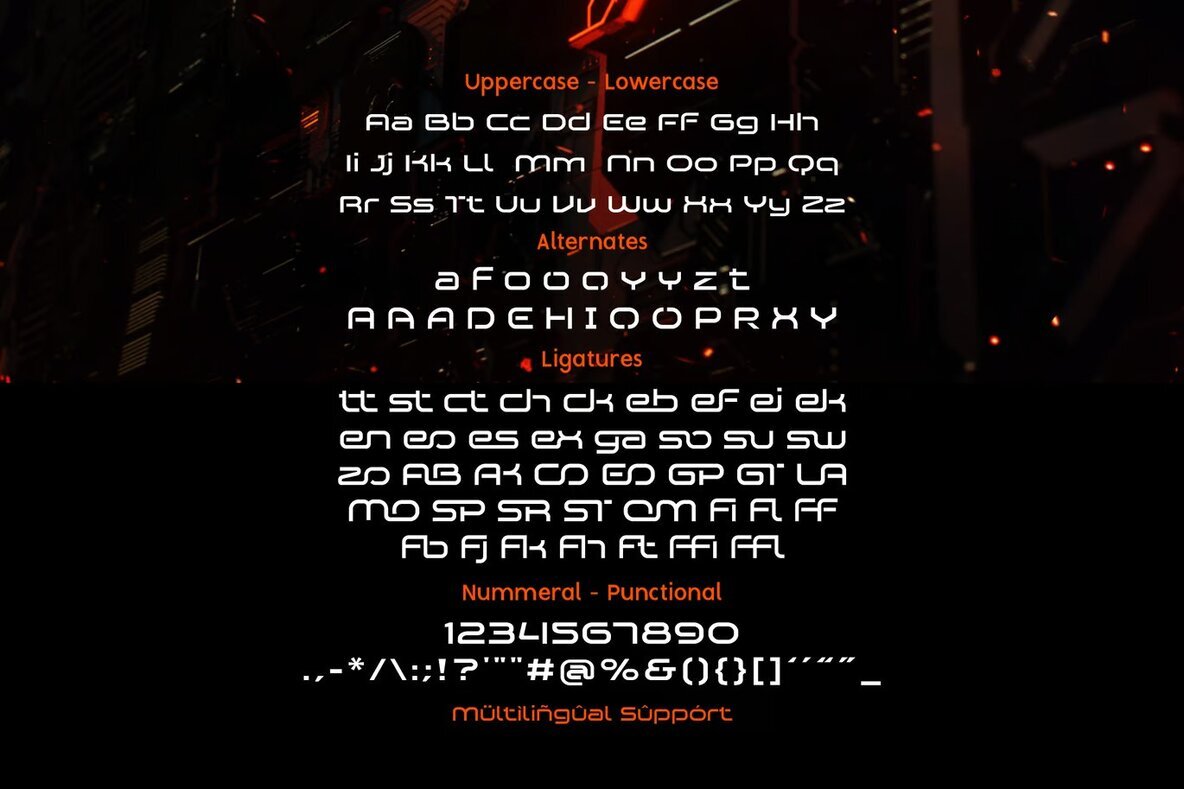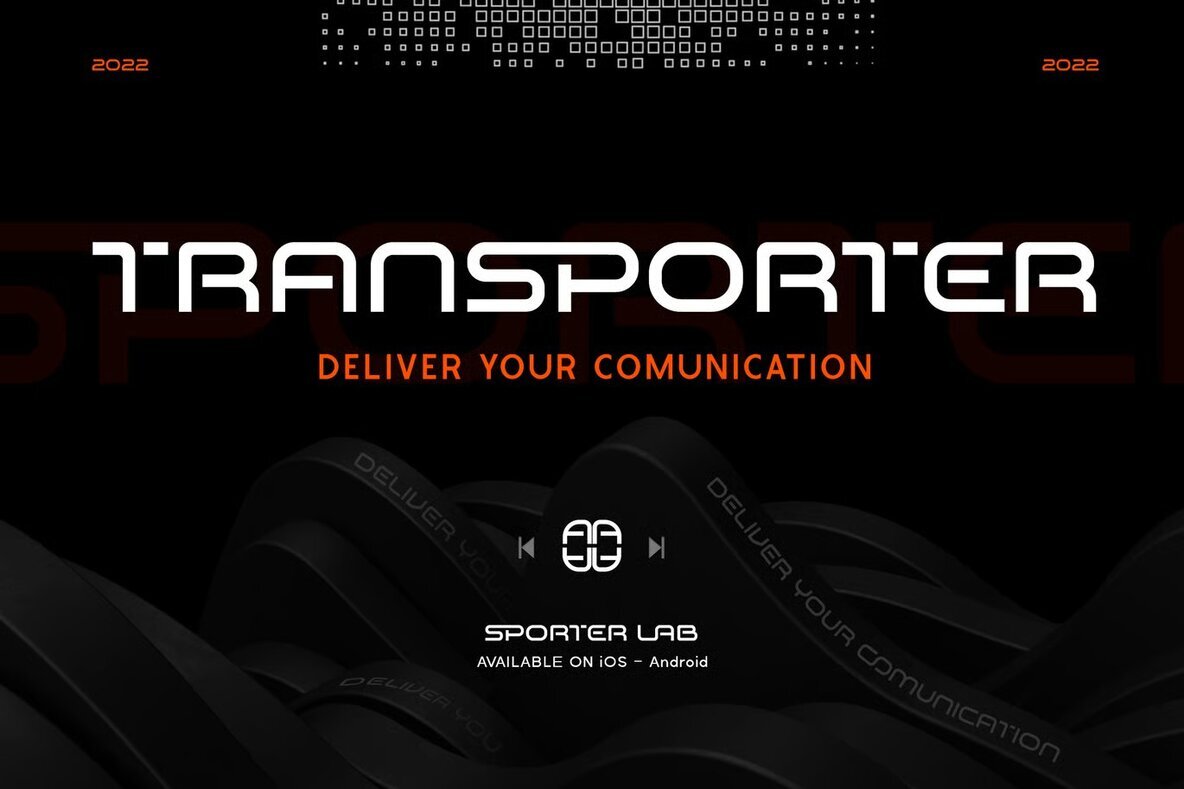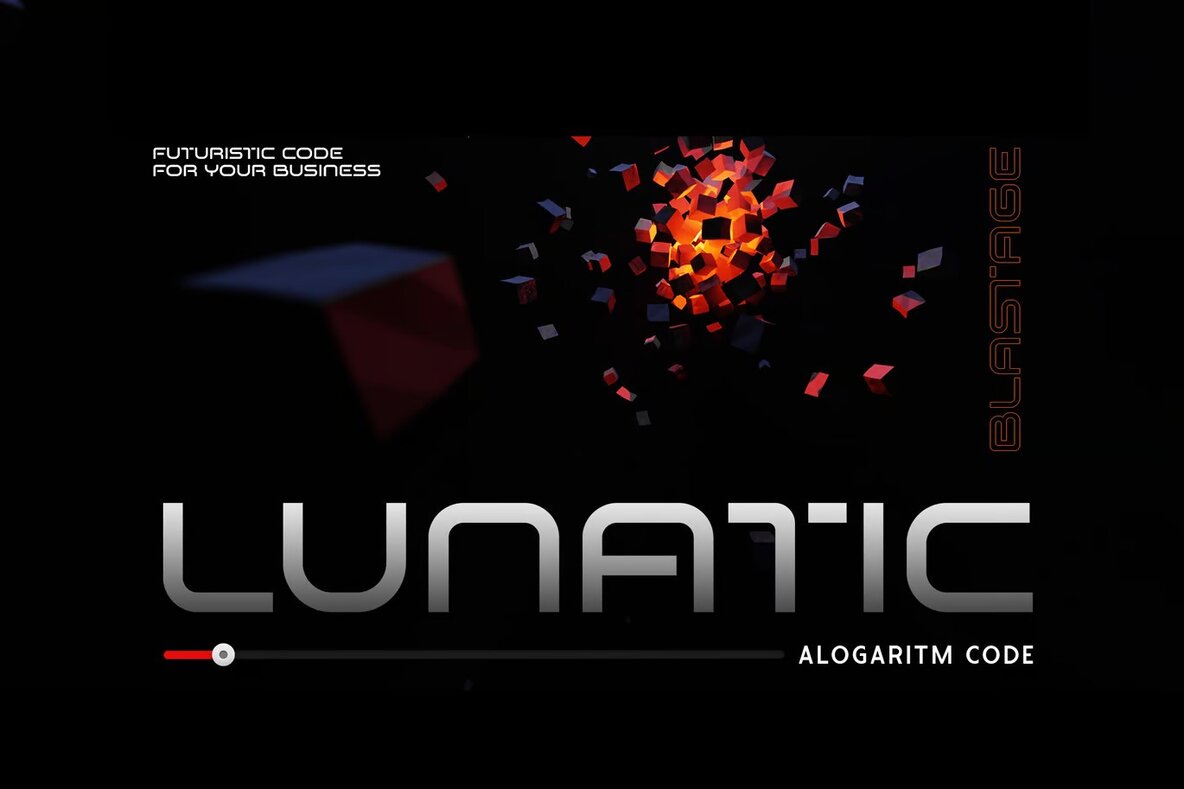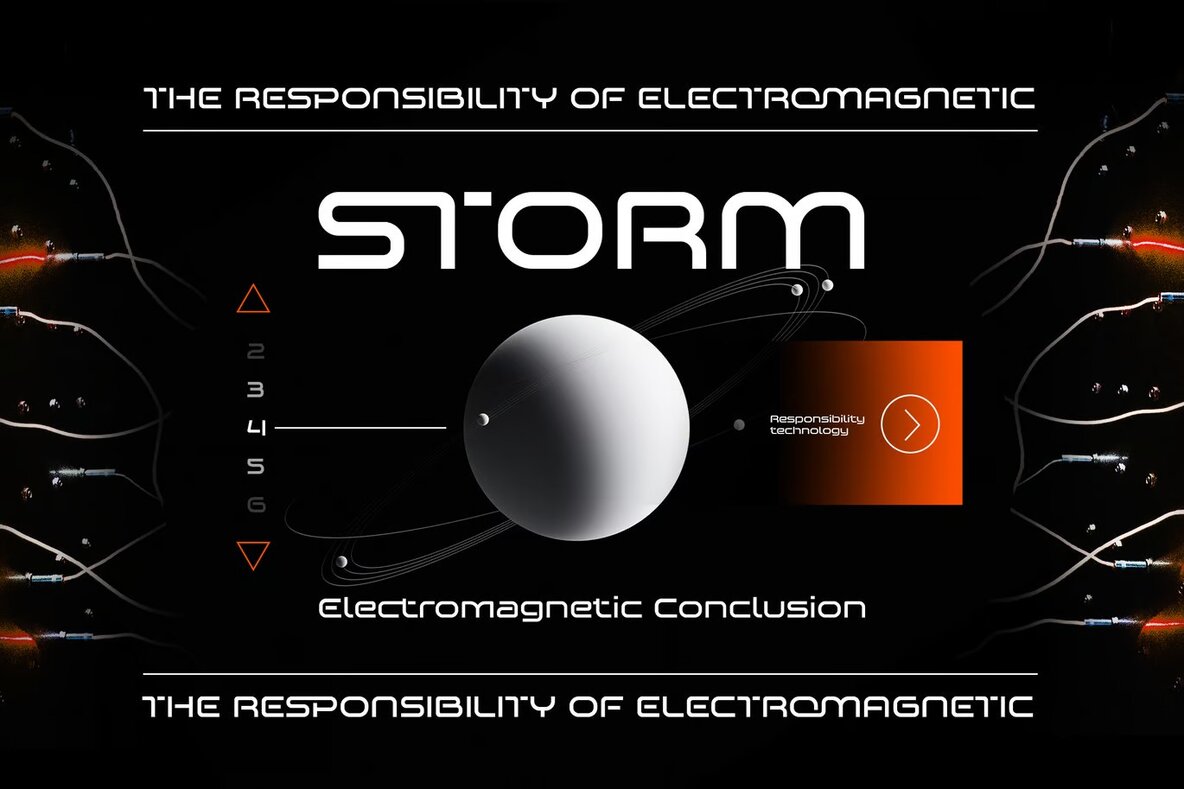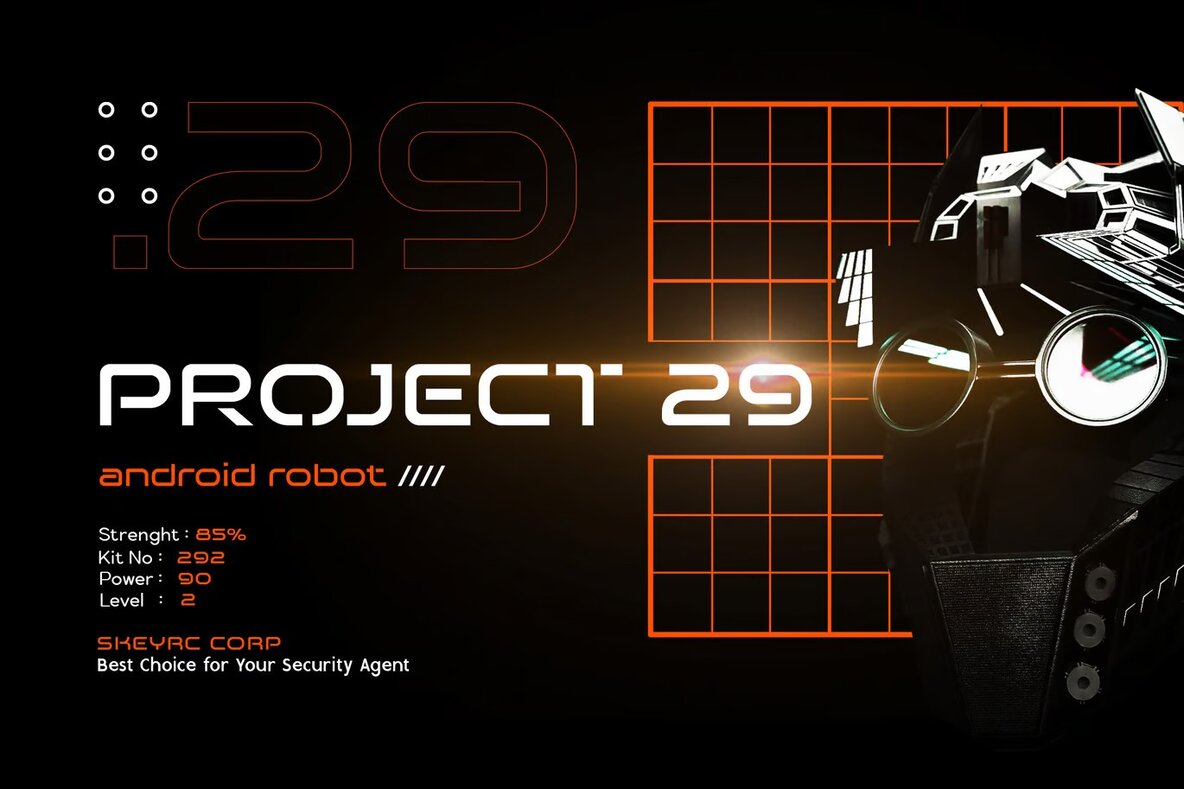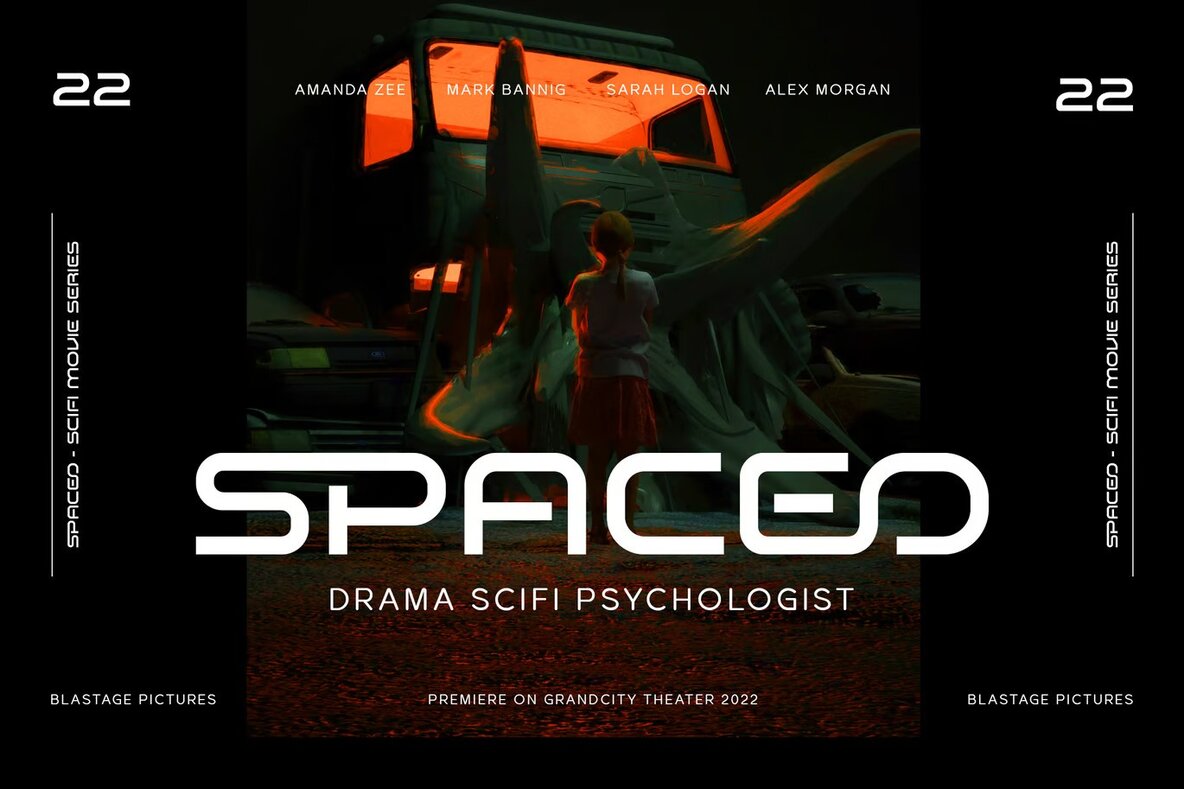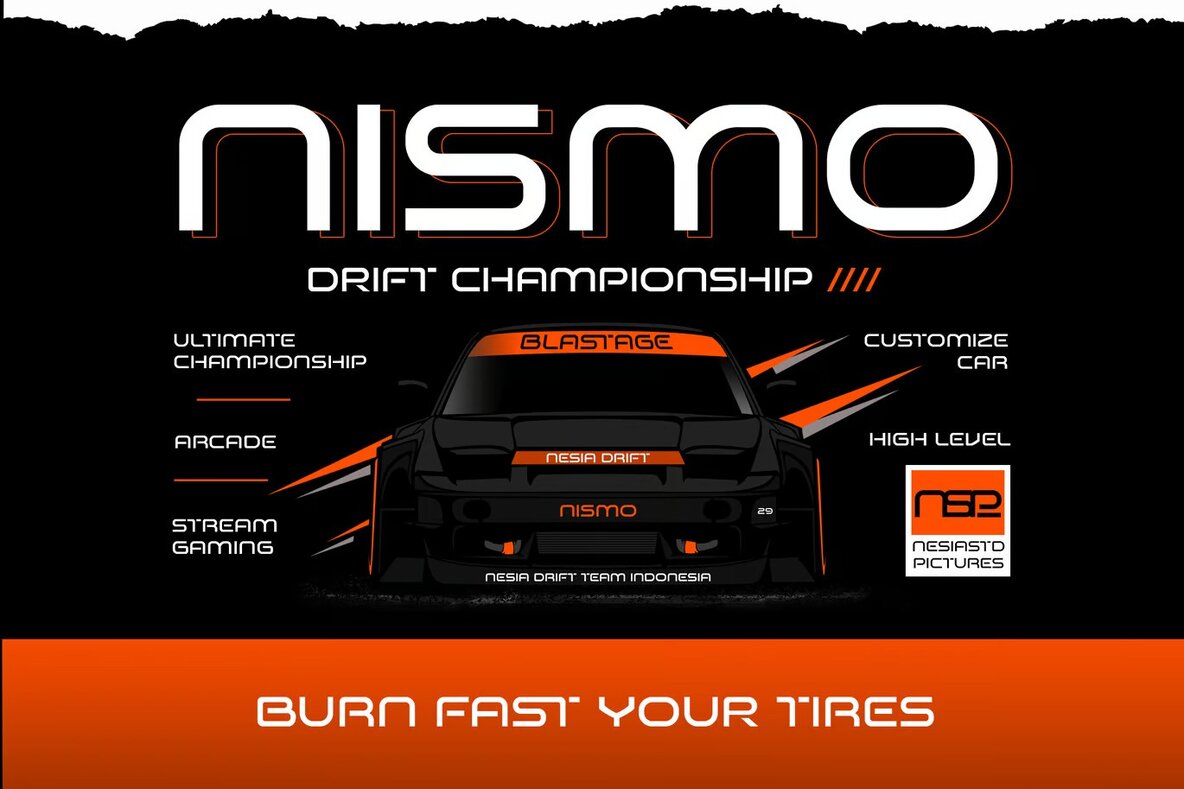
Blastage Font
Blastage Regular
Blastage is a futuristic, bold sans-serif font perfect for a variety of projects. Ideal for logo branding, editorial design, and esport design, this font brings a modern techno vibe to the table. Its design is well-suited for 80s retro aesthetics and the gaming industry, adding a dynamic edge to sport racing themes, supercar branding, and music posters.
This versatile font also shines in website design, modern advertising, and event posters. Whether you are working on book covers, special event promotions, or poster quotes, Blastage ensures your design stands out with a striking and contemporary flair.